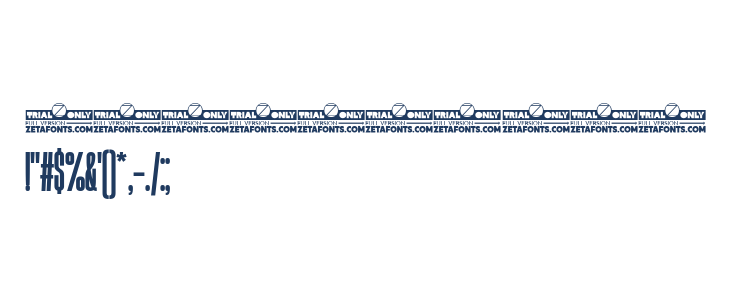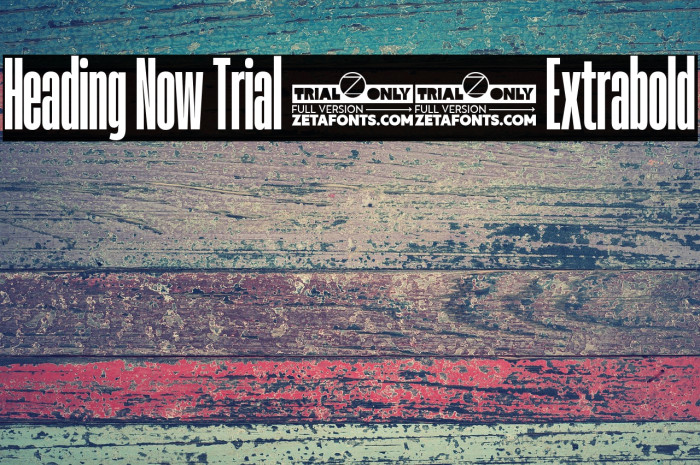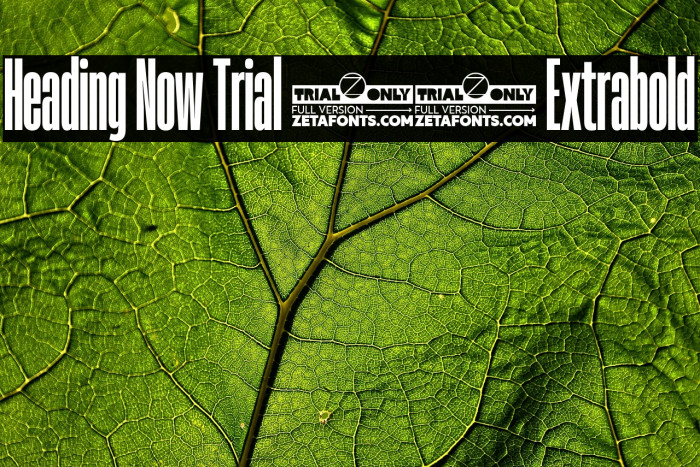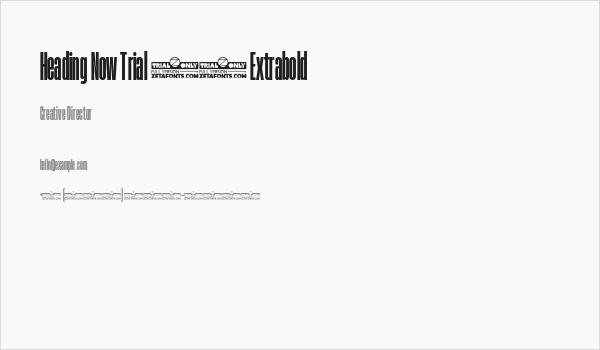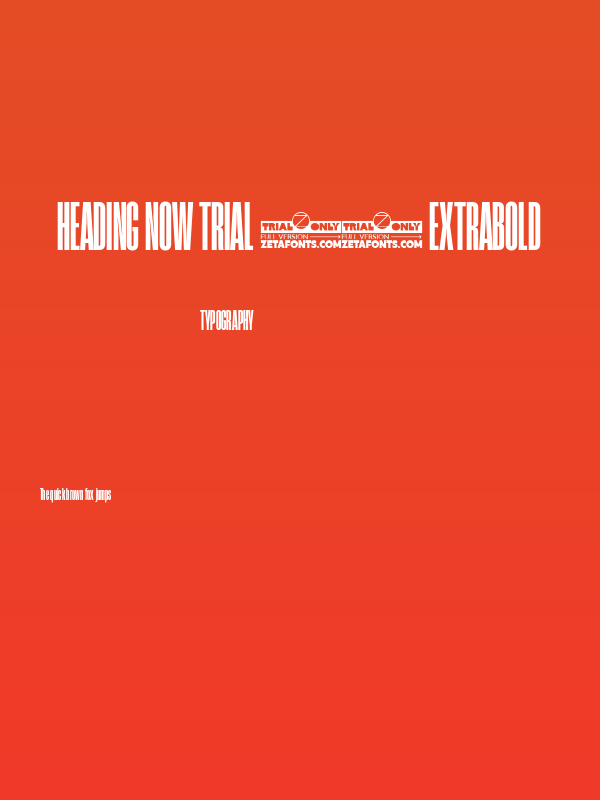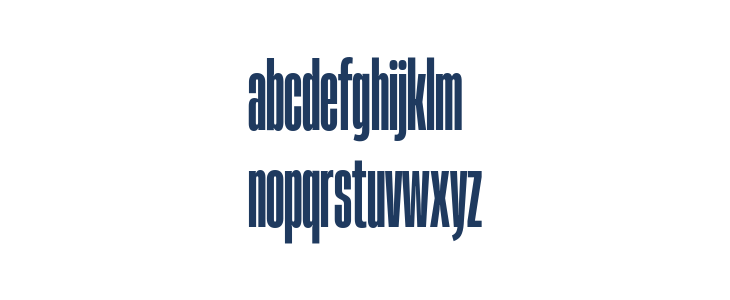
Heading Now Trial 17 Extrabold Font
Heading Now Trial 17 Extrabold Description
This font features a bold and impactful design, characterized by its thick, uniform strokes and condensed letterforms. The uppercase and lowercase letters maintain a consistent height, contributing to a cohesive and powerful appearance. The font's strong vertical emphasis and minimal spacing between characters create a sense of urgency and modernity. Its geometric shapes and clean lines make it suitable for contemporary design projects. The special characters are designed with the same boldness, ensuring they stand out effectively.
| Proposed Projects | Ideal for headlines, posters, branding, and advertising where a strong visual impact is needed. |